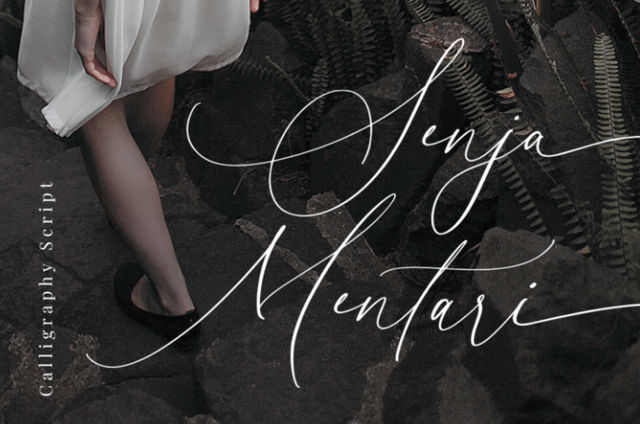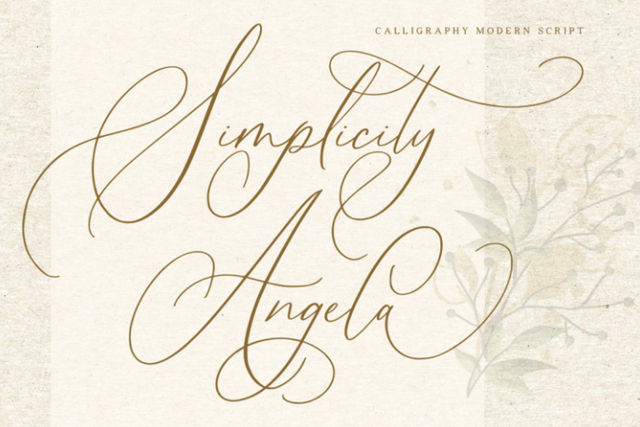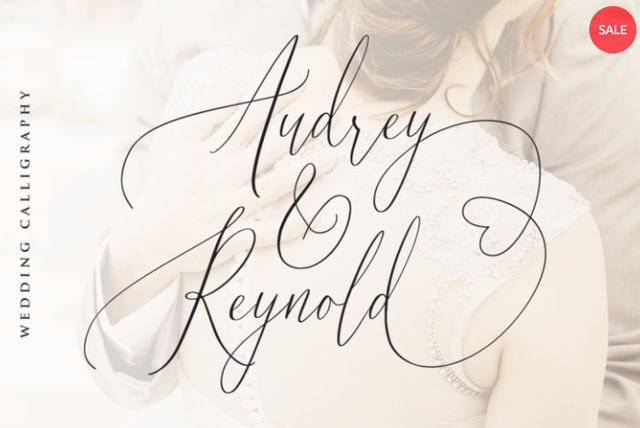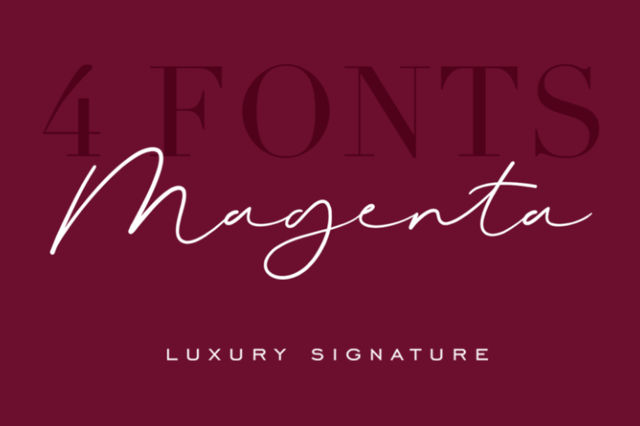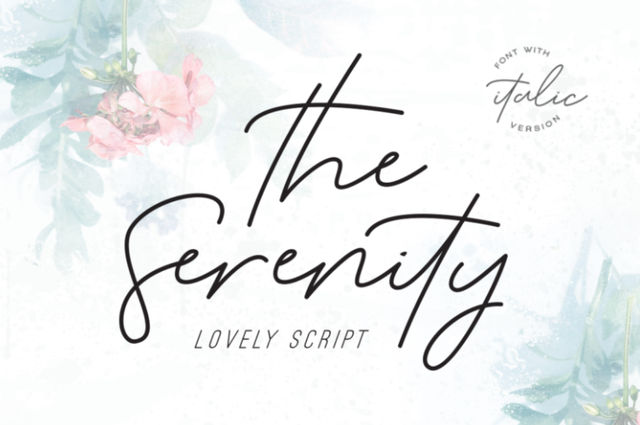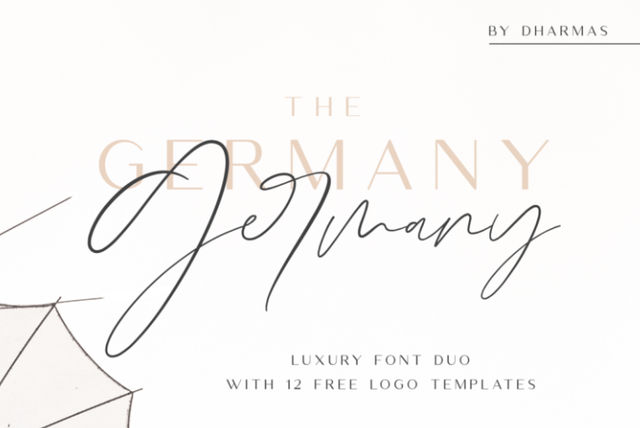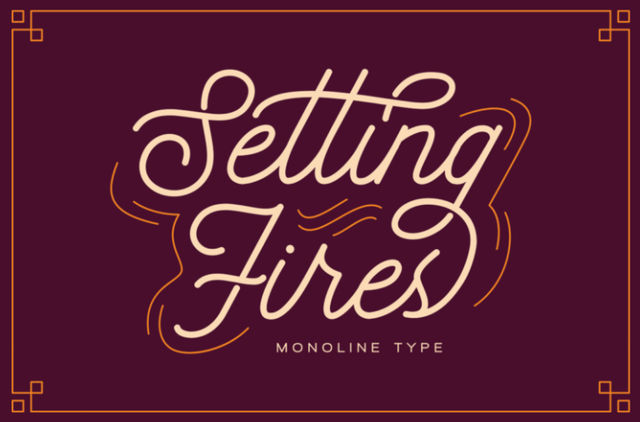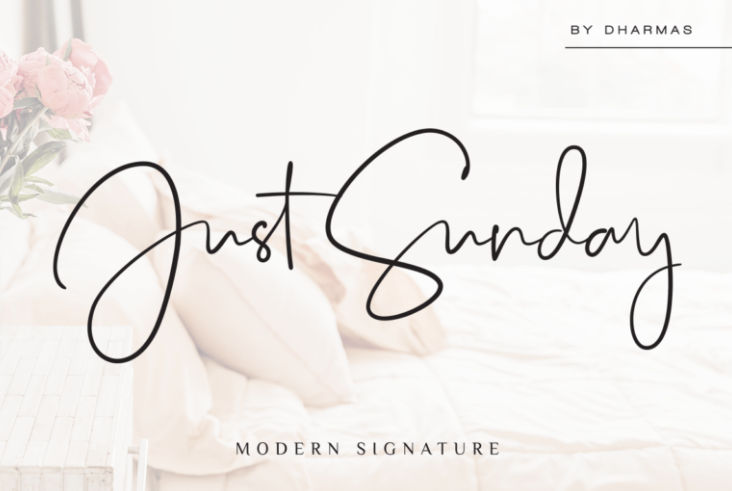
Making the Most of a Script Font in Your Design (Plus Recommendations!)
Of various fonts available, script font is held dear by many typographers and designers. This font variety adds flair to your design, making it look more personalized. It helps with creating a sense of authenticity. People use this font in various contexts, including branding.
Do you want to know how to use a script typeface properly in your design? Let’s find out how to optimize the flavorful font!
Incorporating Script Font into a Design
Designers can use script typefaces to create logos, invitations, infographics, and various other products. Here are some tips to make this font type work in your projects:
Ensure readability
The point of using the typeface in a design is to convey textual information to the audience. Presenting an unreadable text definitely beats that purpose. The first step in ensuring readability is choosing a font you deem highly readable.
Stylistic fonts often have elements that make them difficult to comprehend, particularly in body text. It’s wise to avoid this kind of typeface. You must also consider the space between letters and rows to ensure readability.
Limit yourself to one font
While some designs may benefit from having multiple fonts, it is encouraged not to use more than one script font in a project. Because of the font’s attention-grabbing features, the audience will find it difficult to decide which part of the design to focus on first.
Instead of pairing a script with another script, use sans-serif fonts. Sans-serif is a modern typeface commonly used in websites or apps because of its high readability. Vary the weight of your font combination — combine bold script and light sans-serif, and vice versa.
Shy away from large letters
A script typeface is ideally used as lowercase letters. Think about it; lowercase letters tend to be more varied in shape than their uppercase counterparts. Because of that, the effect of using lowercase letters will be different.
When you have chosen your preferred script typeface, stick with the lowercase version. It will add so much nuance to your design.
10 Font Recommendations
The quest for a script font may overwhelm you, as there are thousands of them to choose from. Here are some top recommendations for you:
1. Senja Mentari
This font is the best option if you are looking for something personal and authentic. Senja Mentari has relatively thin strokes for its letters. However, don’t worry about readability. The space between each letter, known as kerning, is comfortably sparse.
The vibe exuded by this script typeface is modern. You can use it for wedding invitations or other personal cards. It provides a feminine touch needed in certain designs.
2. Simplicity Angela
Many like script typefaces because of their similarity to handwriting. This font will remind you of letters written by people in the 18th or 19th centuries. Each word begins and ends with legal strokes that make your design look classy.
Simplicity Angela suits invitations for weddings or any formal event. It may be better to match this type of font with strong yet warm colors like maroon.
3. Bottomland
If you are looking for something quirky, Bottomland may be the answer. The font looks like authentic handwriting because the letters are not uniform. Some strokes may look messy but in a good way. It adds an “oomph” to any design.
The font’s wet ink texture also increases its authenticity. This makes Bottomland a suitable font for various printing techniques, including gold foil and laser cut.
4. Audrey & Reynold
There’s no other word to describe this font but “luxury.” The script font looks realistic, thanks to its beginning and ending swashes. This font comes with extensive numerals, punctuations, and ligatures to make your design more complete.
Audrey & Reynold is a modern calligraphy font that embodies romance. It is suitable for wedding branding and invitations. Red wine business owners can also consider using this font for their logos.
5. Grandiose
Look no further for a stylish font. Grandiose is your answer, that is, if you’re looking for a modern and realistic font. Despite its name, this font is not intrusive. You can place it in a small space, and the letters will fit snuggly.
Grandiose fits any project that requires elegant typewriting. Some users make their digital signatures with this font. It can also be used for social media headers and product packaging.
6. Magenta
Go with Magenta if you want a font that exudes luxury but does not seem to be overproduced. This font has an ending swish that tapers off, making it look like authentic handwriting.
Don’t worry about readability when using this font. There is adequate space between each character. You can use this font for social media headers and logos.
7. The Serenity
Screen Shot 2023 12 19 At 165217
This script font totally fits its name, The Serenity. It is a type of font that does not look too formal or stiff. You can see some inconsistencies commonly found in handwriting. For example, some characters are connected with swishes, while others are not.
Adding this font for your designs, like apparel, will make them look tasteful. It is recommended not to apply The Serenity in long text for maximum readability.
8. Germany
script font
Germany offers a different kind of authenticity. The script version of this font looks handmade. When you get this font package, you will receive the monoline script and sans versions. There are also editable logo templates that can help you kickstart a design project.
Use this font to create signatures, logos, and wedding-related designs. It is better to avoid making long text with it if you want to ensure readability.
9. Setting Fires
Screen Shot 2023 12 19 At 165350
Are you looking for a vintage font? If so, Setting Fires is something that should be in your arsenal. This font has a vintage monoline touch. In addition to bringing it that nostalgic flavor, the typeface is very tidy and easy to read.
Incorporate this font in your product designs, especially if your brand or product line has a retro-vintage tone. This font comes with stylistic alternates, too.
10. Just Sunday
script font
Just Sunday is a pleasant font to look at. The accents of the script are not jarring, making it easier for the audience to discern the text. Its wet ink texture also appears smooth.
This script font is great for numerous projects. Business owners can use Just Sunday to create logos and posters. It is also a suitable logo for quotes and letters because of its high readability.
These script font recommendations are top samples among many. Be smart when using them in your design. Focus on readability to ensure you get the message to the audience.